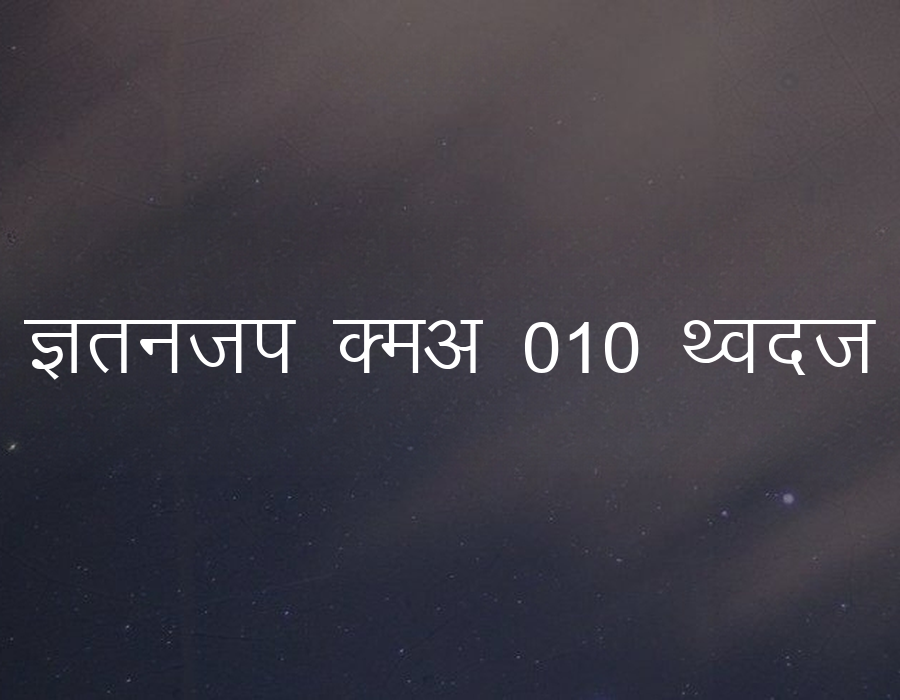
About Kruti Dev 010 Font
Kruti Dev 010 is one of the most recognizable and historically significant typefaces for the Devanagari script in India. It features a distinct, somewhat decorative style with strong vertical emphasis and traditional character shapes that became a standard for Hindi typing. For decades, it was the go-to font for government documents, textbooks, newspapers, and legal paperwork in northern India. While newer, more refined fonts have emerged, Kruti Dev 010 remains deeply entrenched in administrative and publishing workflows, valued for its familiarity and universal compatibility in older systems.